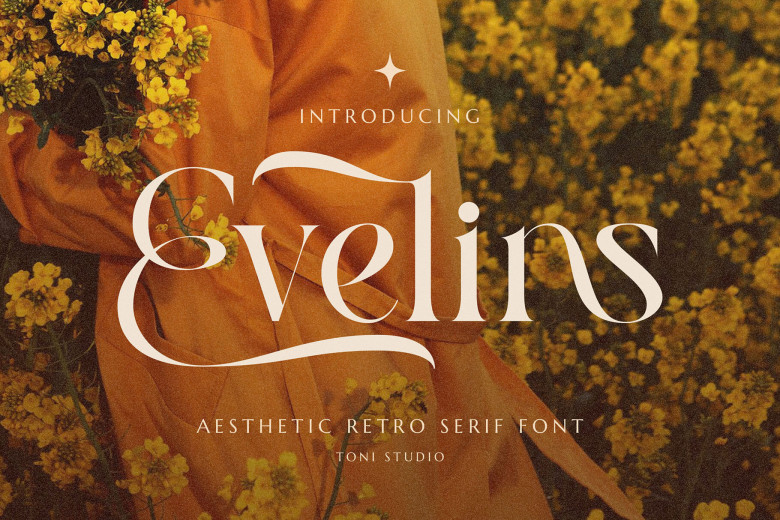
Evelins Font
Evelins Font is an embodiment of modern moments that come with a hint of uninterupted romance. The sleek look of this serif font looks both sophisticated and different to add a romantic touch and tease artistic turns of the atmosphere into the definition of letters. Ideal for use in designing logo, crafts, posters, books, etc; makes a brand or any creative expression, stand out and exclusive.
It is suitable to be used in quotes designs, print designs, packaging, invitations, and product labels. It is particularly helpful in creating ads or designing wedding invitations and any projects that require a hint of elegance. This typeface consists of all the upper and lower case letters as well as punctuations, symbols, numbers, and ligatures all of which makes it an ideal companion for anyone who wants that clean, fresh, and sleek look.
Evelins Serif Font